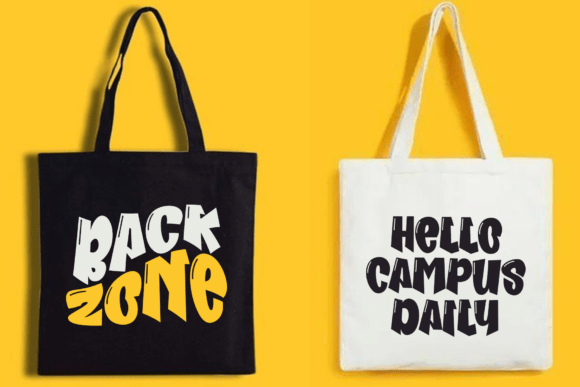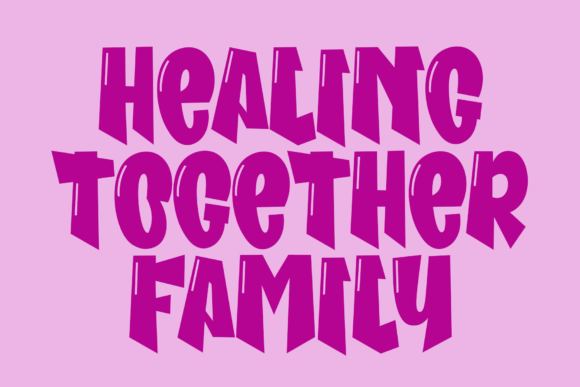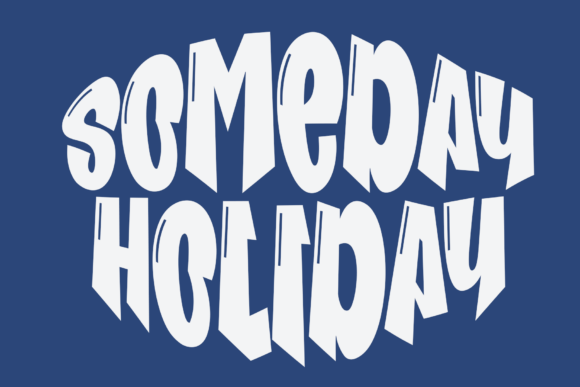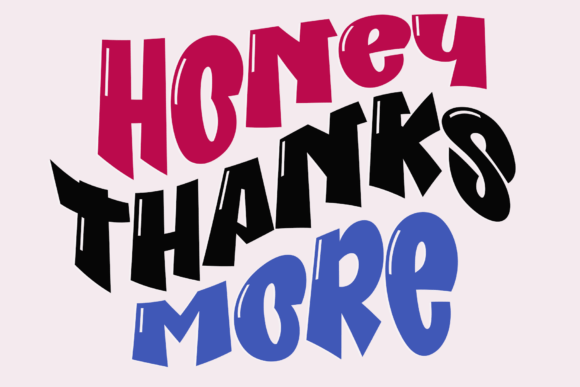
Unleash Your Creativity with Benefit Damn Font
I’ll never forget the design struggle I faced while working on a vibrant youth culture project. My client wanted a font that was bold, playful, and attention-grabbing, but I was stuck in a creative rut. That’s when I stumbled upon Benefit Damn, a game-changing display typeface that instantly elevated my design. If you’re a designer, crafter, or creative hobbyist looking for a font that packs a punch, you’re in the right place!
A Personal Review of Benefit Damn
- ✅ Unique Personality: Benefit Damn combines retro comic flair with modern street-style boldness, making it perfect for projects that call for high impact, expressive branding, and eye-catching visuals.
- ✅ Geometric Shapes: The font’s chunky, geometric shapes with exaggerated curves and sharp angles create a sense of movement and rhythm, adding energy to any design.
- ✅ Dimensional Look: Subtle cut-ins and glossy highlights give each character a dimensional, almost cartoon-like energy that sets it apart from other fonts.
- ✅ Versatility: Benefit Damn thrives in contexts where personality matters—youth culture, social media, fashion, music events, and playful packaging.
While Benefit Damn is an amazing font, it’s not without its quirks. For instance, some users might find that the font’s boldness can be overwhelming in certain contexts. Additionally, the font’s uniqueness might not be suitable for projects requiring a more traditional or formal look.
- 🤔 Overwhelming Boldness: Be cautious when using Benefit Damn in projects with limited design elements, as its boldness might dominate the visual space.
- 🤔 Limited Formality: Benefit Damn’s playful personality might not be suitable for projects requiring a more traditional or formal look.
The Story Behind Benefit Damn
Benefit Damn was designed with one goal in mind: to create a font that’s bold, playful, and attention-grabbing. Inspired by the vibrant world of youth culture, fashion, and music, Benefit Damn combines retro comic flair with modern street-style boldness. The font’s designer aimed to create a typeface that would bring energy, movement, and rhythm to any design, making it perfect for projects that call for high impact, expressive branding, and eye-catching visuals.
| Font Name | Benefit Damn Font |
| Author | Plafont store |
Q: What type of projects is Benefit Damn best suited for?
A: Benefit Damn is perfect for projects that call for high impact, expressive branding, and eye-catching visuals, such as youth culture, social media, fashion, music events, and playful packaging.
Q: Is Benefit Damn a versatile font?
A: Yes, Benefit Damn is a versatile font that can be used in a variety of contexts, from digital graphics to print materials.
Q: Can I use Benefit Damn in combination with other fonts?
A: Absolutely! Benefit Damn pairs well with a range of fonts, from bold and edgy to elegant and refined. Experiment with different font combinations to find the perfect look for your project.